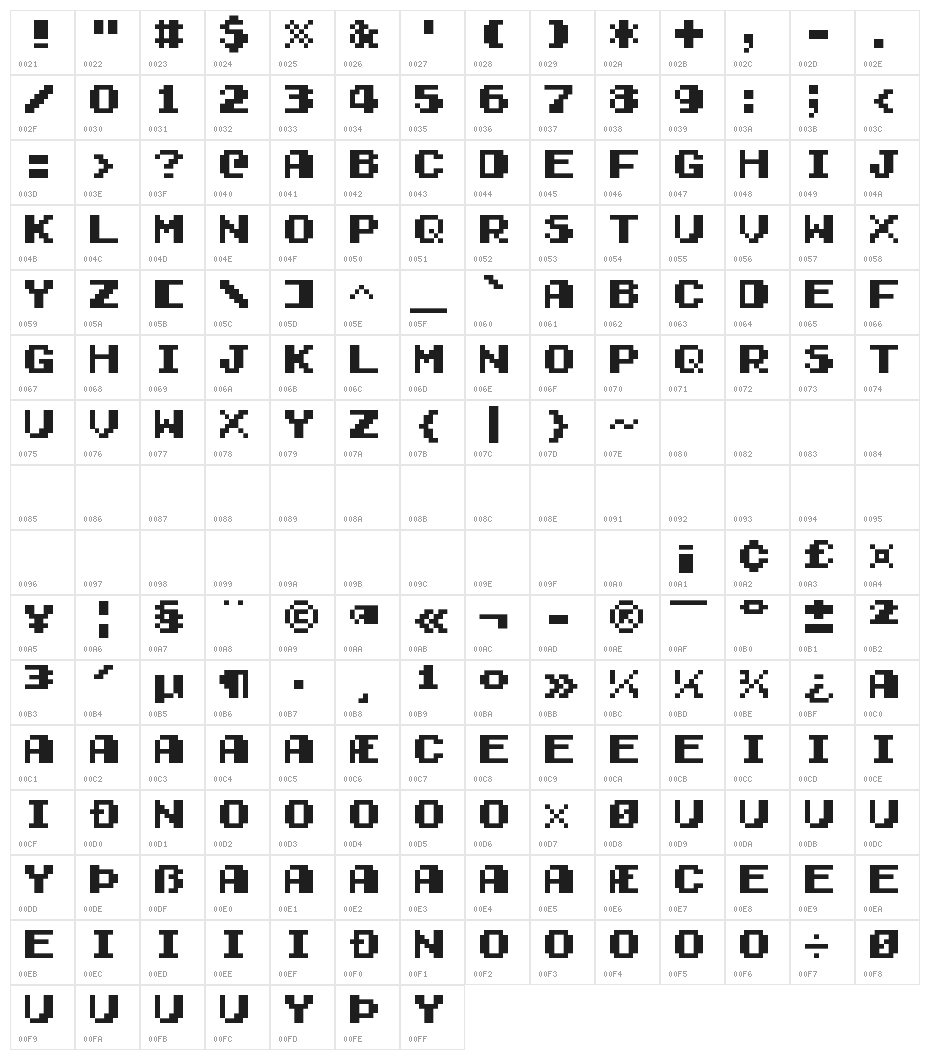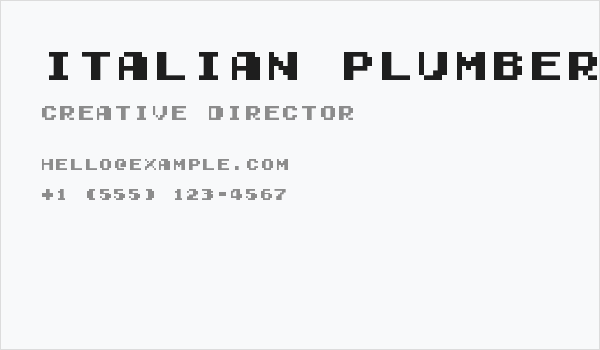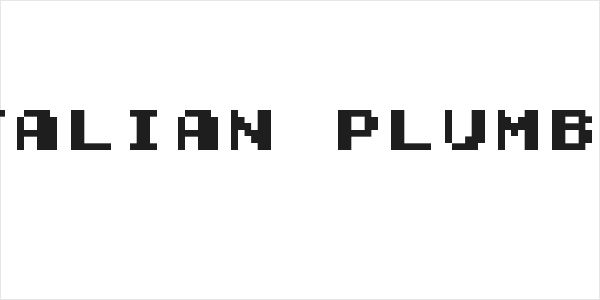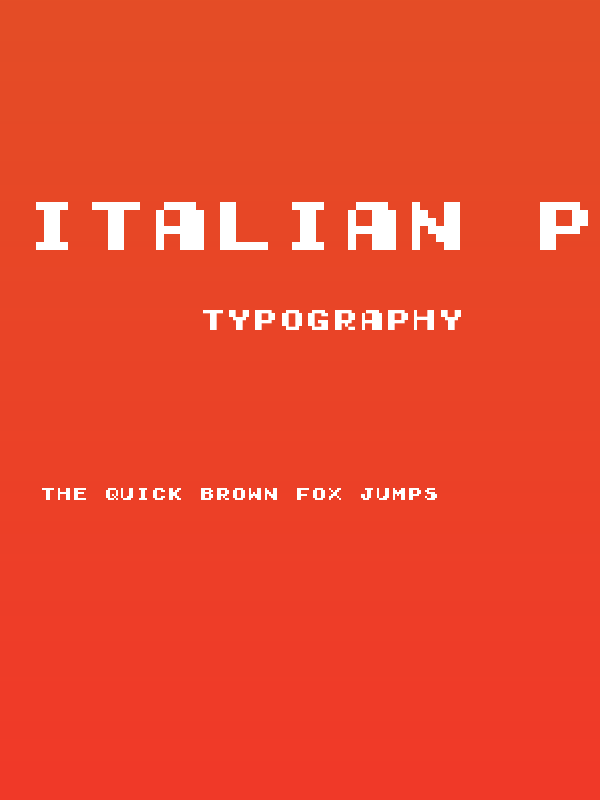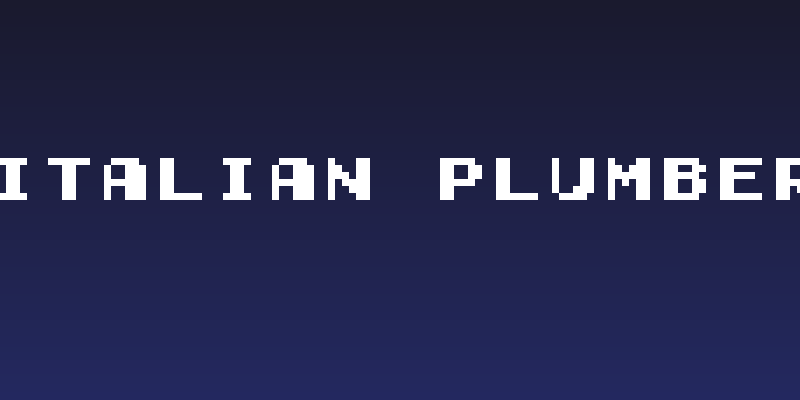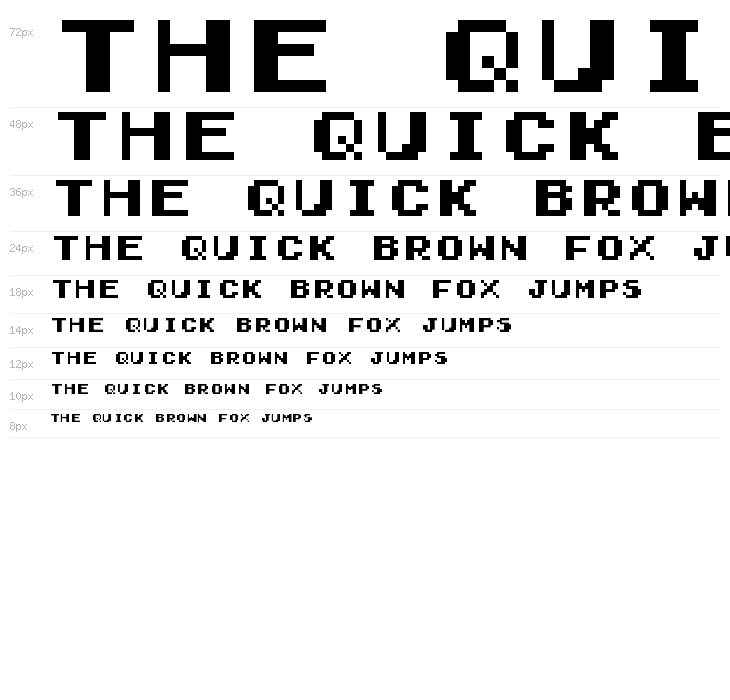
Italian Plumber Font
Italian Plumber Description
This font features a bold, pixelated style reminiscent of classic video game graphics. Each character is constructed with a blocky, grid-like appearance, giving it a retro and digital feel. The uniformity in stroke width across all characters ensures a consistent and cohesive look, while the angular edges and lack of curves emphasize its geometric nature. The font is highly legible and stands out due to its distinctive, nostalgic aesthetic, making it ideal for projects that aim to evoke a sense of nostalgia or pay homage to early digital design.
| Proposed Projects | Ideal for video game design, retro-themed posters, digital art, and any project seeking a nostalgic or vintage digital look. |